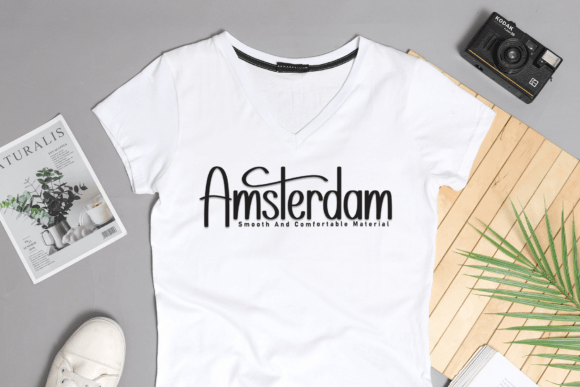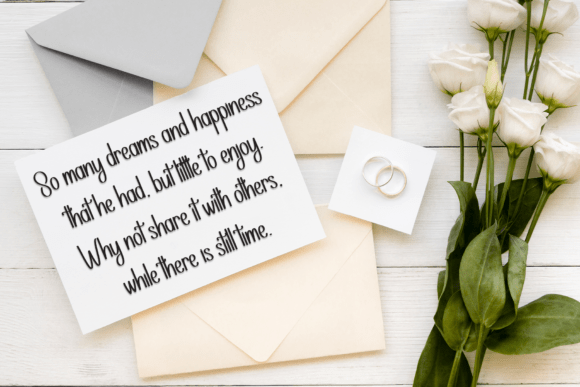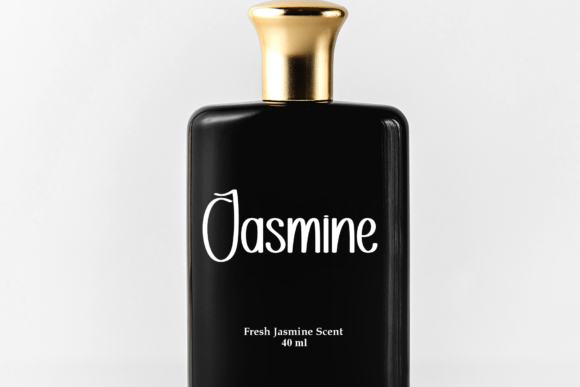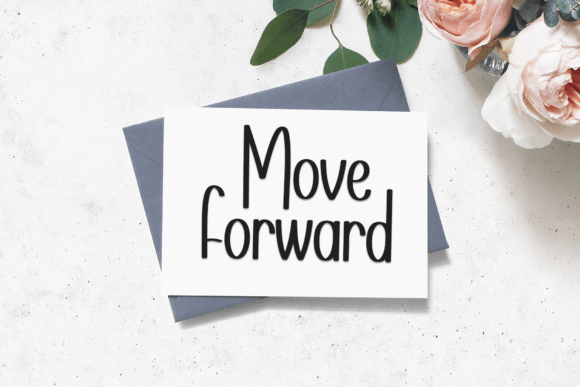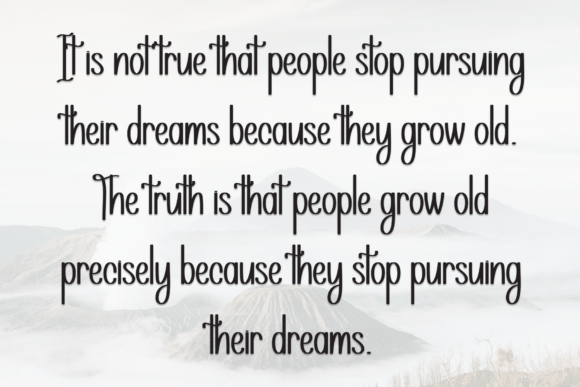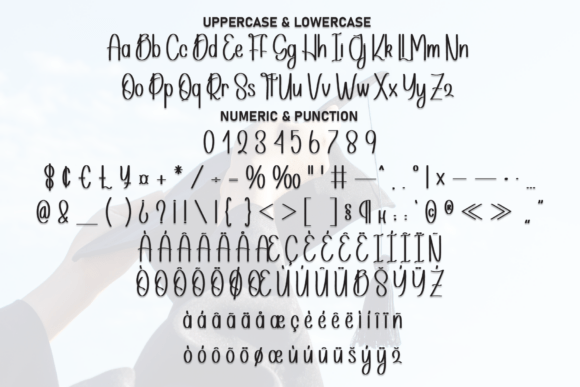
Introducing Graduation Font: The Perfect Blend of Elegance and Playfulness
Are you looking for a font that can add a touch of sophistication and whimsy to your designs? Look no further than Graduation Font, a stylish handwritten script font that is sure to capture the essence of elegance and playfulness in every stroke.
What is Graduation Font?
Graduation Font is a beautifully crafted handwritten script font that boasts flowing curves and a natural rhythm, making it perfect for adding a personal and charming touch to a variety of projects, including invitations, branding, and social media.
Key Features of Graduation Font
- Elegant and Playful Design: Graduation Font features a unique blend of elegance and playfulness, making it perfect for designers and crafters who want to add a touch of sophistication to their work.
- Flowing Curves and Natural Rhythm: The font’s flowing curves and natural rhythm give it a warm and inviting feel, making it perfect for projects that require a personal touch.
- Versatile and Adaptable: Graduation Font is highly versatile and adaptable, making it suitable for a wide range of projects, from formal invitations to social media graphics.
Uses of Graduation Font
Graduation Font is perfect for a variety of projects, including:
- Invitations: Whether you’re planning a wedding, birthday party, or graduation ceremony, Graduation Font is the perfect choice for creating beautiful and elegant invitations.
- Branding: Graduation Font can add a touch of sophistication and elegance to your brand’s logo, packaging, and marketing materials.
- Social Media: Use Graduation Font to create eye-catching social media graphics, including Facebook posts, Instagram stories, and Twitter headers.
Benefits of Using Graduation Font
By using Graduation Font, designers and crafters can enjoy a range of benefits, including:
- Unique and Eye-Catching Designs: Graduation Font’s elegant and playful design ensures that your projects will stand out from the crowd.
- Time-Saving: With Graduation Font, you can create beautiful and professional-looking designs in no time.
- Customization: Graduation Font is highly customizable, allowing you to adjust the font size, style, and color to suit your project’s needs.
Tips for Using Graduation Font
To get the most out of Graduation Font, here are a few tips to keep in mind:
- Pair with Other Fonts: Graduation Font pairs well with other fonts, including serif and sans-serif fonts.
- Experiment with Colors: Graduation Font looks great in a variety of colors, from bold and bright to soft and pastel.
- Use for Headings and Titles: Graduation Font is perfect for headings and titles, adding a touch of elegance and sophistication to your designs.
Graduation Font is a stylish and versatile handwritten script font that is perfect for designers and crafters who want to add a touch of elegance and playfulness to their projects. With its flowing curves and natural rhythm, Graduation Font is sure to bring warmth, sophistication, and creativity to any project.